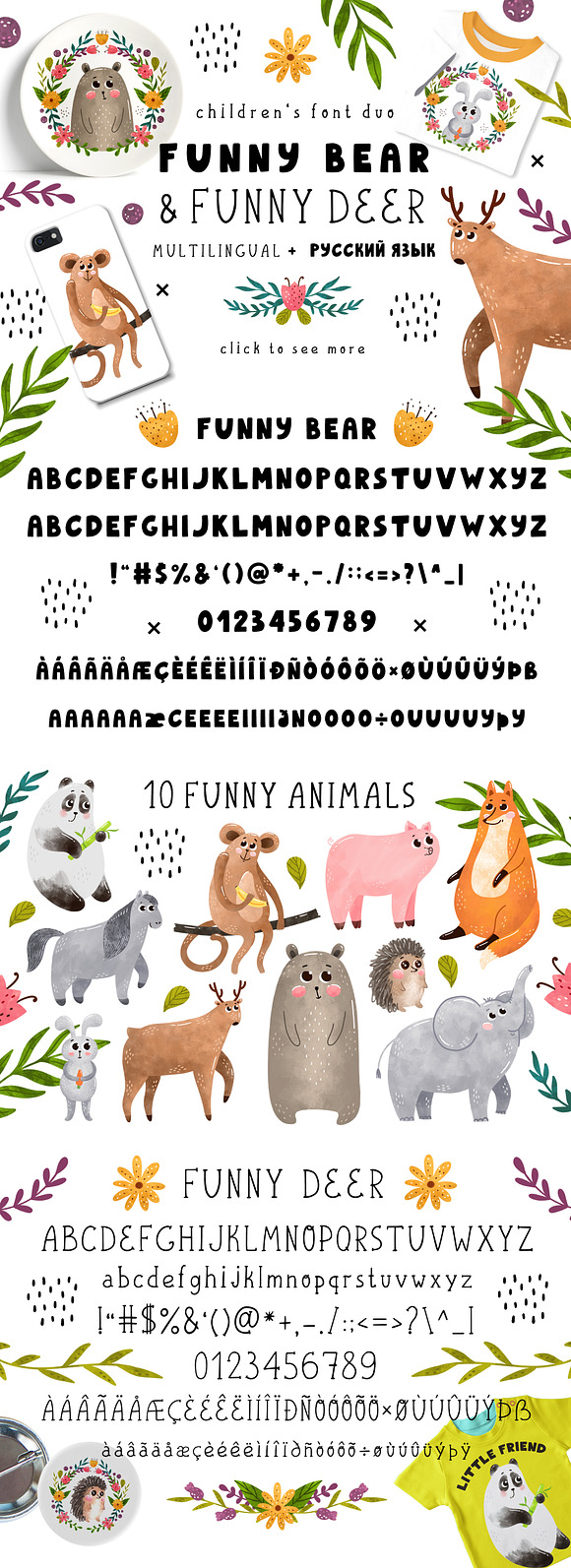
Funnybear & Funnydeer - Duo Font
This playful typeface is perfect for children's books, toy branding, nursery decorations, kids' clothing, animal-themed projects, educational materials, cartoon graphics, family-friendly businesses, and whimsical design applications.
What makes this font exciting is its adorable character combination combined with woodland charm, offering designers a delightful typeface duo that captures the magic of forest friends while delivering playful sophistication and heartwarming family appeal.
The Funnybear & Funnydeer font family includes regular, bold, playful, outline, and woodland variations, providing complete children's design solutions for creating enchanting animal visual identities.
Whether you're developing children's entertainment brands or crafting family-friendly experiences, Funnybear & Funnydeer - Duo Font Free Download brings exceptional woodland atmosphere and playful authenticity to every application. This charming typeface combines animal-inspired typography with contemporary children's design, creating letterforms that inspire joy and celebrate friendship. The font's woodland construction and family-ready details make it perfect for brands seeking immediate child-friendly recognition.
Funnybear & Funnydeer - Duo Font features carefully crafted animal styling with authentic woodland character that conveys genuine family expertise. Each character has been designed with adorable proportions and friendly elements that enhance the heartwarming aesthetic. The font's playful qualities make it particularly effective for children's brands and educational applications.
Professional designers choose Funnybear & Funnydeer - Duo Font for projects requiring authentic family credibility and woodland atmosphere. Its animal heritage makes it exceptionally well-suited for toy companies, children's publishers, and family lifestyle brands. The font's versatile playful variations allow designers to control the woodland intensity, from subtle animal elegance to full forest celebration.
The complete Funnybear & Funnydeer - Duo Font package offers extensive woodland ornaments and animal decorative elements that enhance the playful aesthetic. Advanced friendship features allow designers to create complex woodland effects with multiple forest-inspired options. This comprehensive family toolkit ensures designers have everything needed to create authentic children's communications that celebrate the enduring magic of woodland friendship and playful animal adventures.